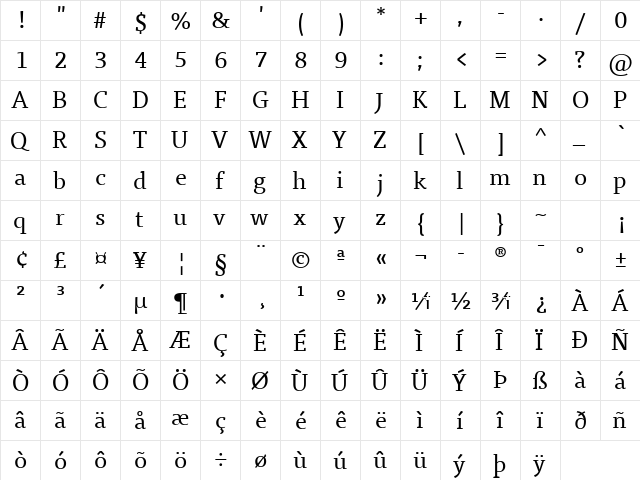
Tisa Tf Regular Font Preview
Tisa Tf Regular
Tisa Tf Regular Font Details
| Foundry | FSI |
| Designer | Mitja Miklavcic |
Design Context for Tisa Tf Typeface
Tisa Tf is a composed and adaptable typeface that performs quietly and consistently across a wide range of design contexts.